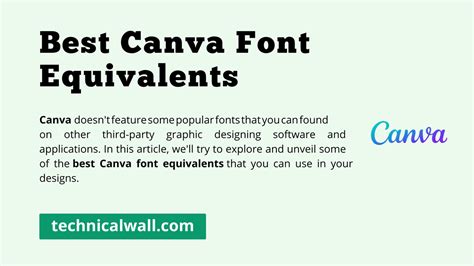
Canva Font Equivalents. Web canva's ultimate guide to font combinations. Similar fonts in canva vs.
Web learn more matching a font in canva can be a challenging task, especially if you are not familiar with the different font styles. Similar fonts in canva vs. Web canva's ultimate guide to font combinations. Web below is a table of contents organizing the best canva fonts based on their style (cursive, retro, sans serif, etc.) and use case (instagram posts, youtube thumbnails, etc.). Design publication font combination:league spartan + libre baskerville. League spartan is a modern typeface with strong structure and. Click on any of the. Web in this tutorial, our team of design experts will cover how to identify some of the most popular fonts in canva and list their closest canva font equivalent.
Web canva's ultimate guide to font combinations. Similar fonts in canva vs. Web canva's ultimate guide to font combinations. Click on any of the. League spartan is a modern typeface with strong structure and. Web below is a table of contents organizing the best canva fonts based on their style (cursive, retro, sans serif, etc.) and use case (instagram posts, youtube thumbnails, etc.). Design publication font combination:league spartan + libre baskerville. Web learn more matching a font in canva can be a challenging task, especially if you are not familiar with the different font styles. Web in this tutorial, our team of design experts will cover how to identify some of the most popular fonts in canva and list their closest canva font equivalent.